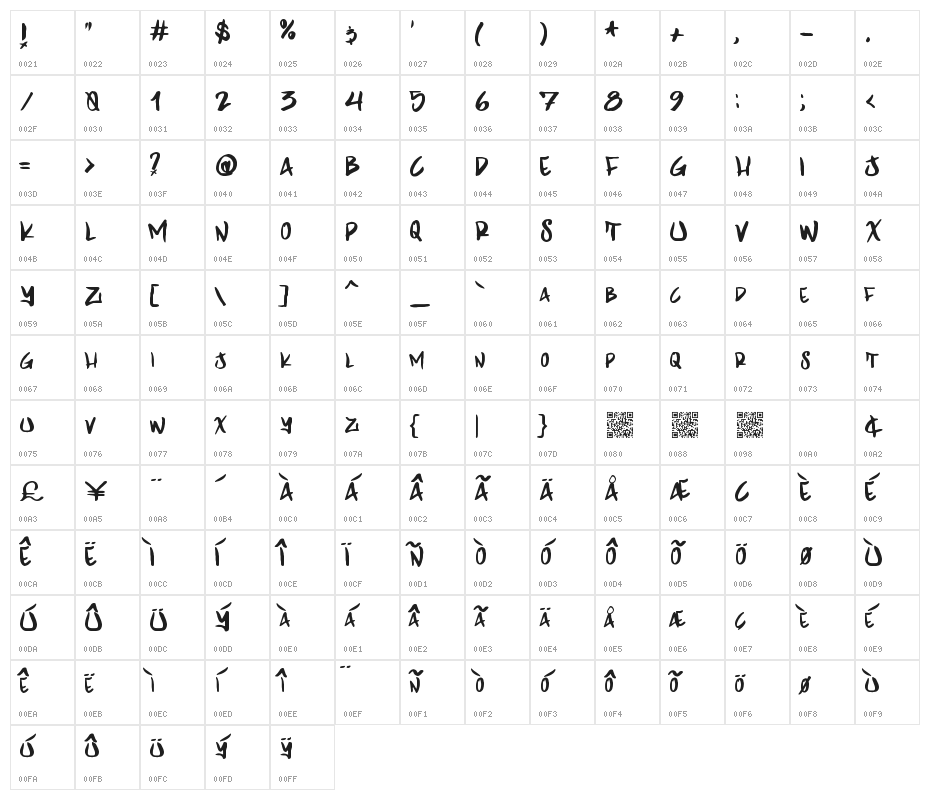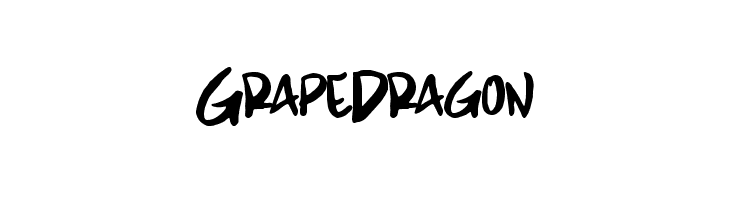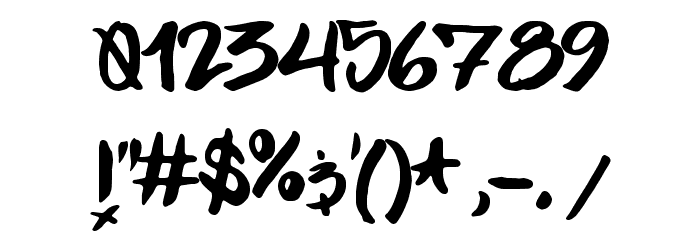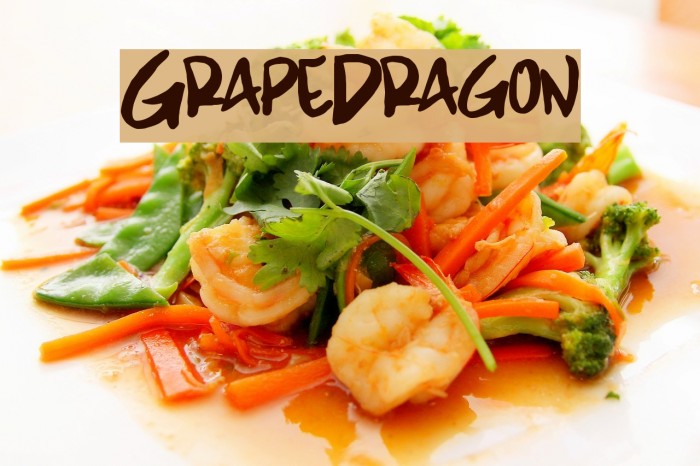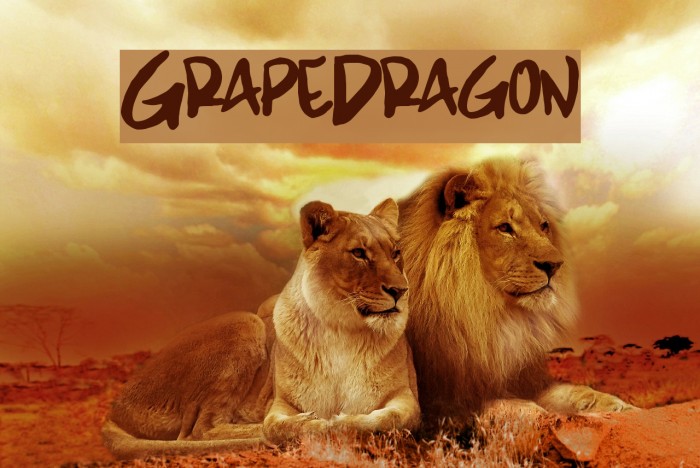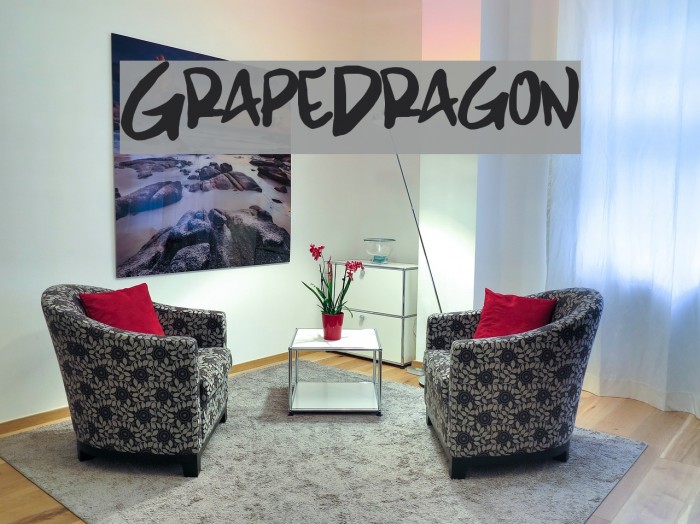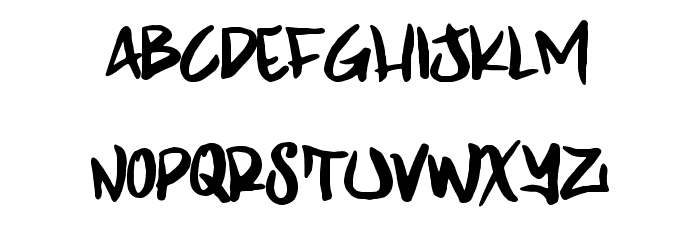
GrapeDragon Font
GrapeDragon Description
This font exhibits a bold and expressive handwritten style, characterized by its dynamic and fluid strokes. The letters have a playful and energetic appearance, with varying thickness that adds a sense of movement and personality. The uppercase and lowercase letters maintain a consistent style, while the numbers and special characters are crafted with the same lively flair. The overall design is informal and artistic, making it suitable for creative projects that require a personal touch.